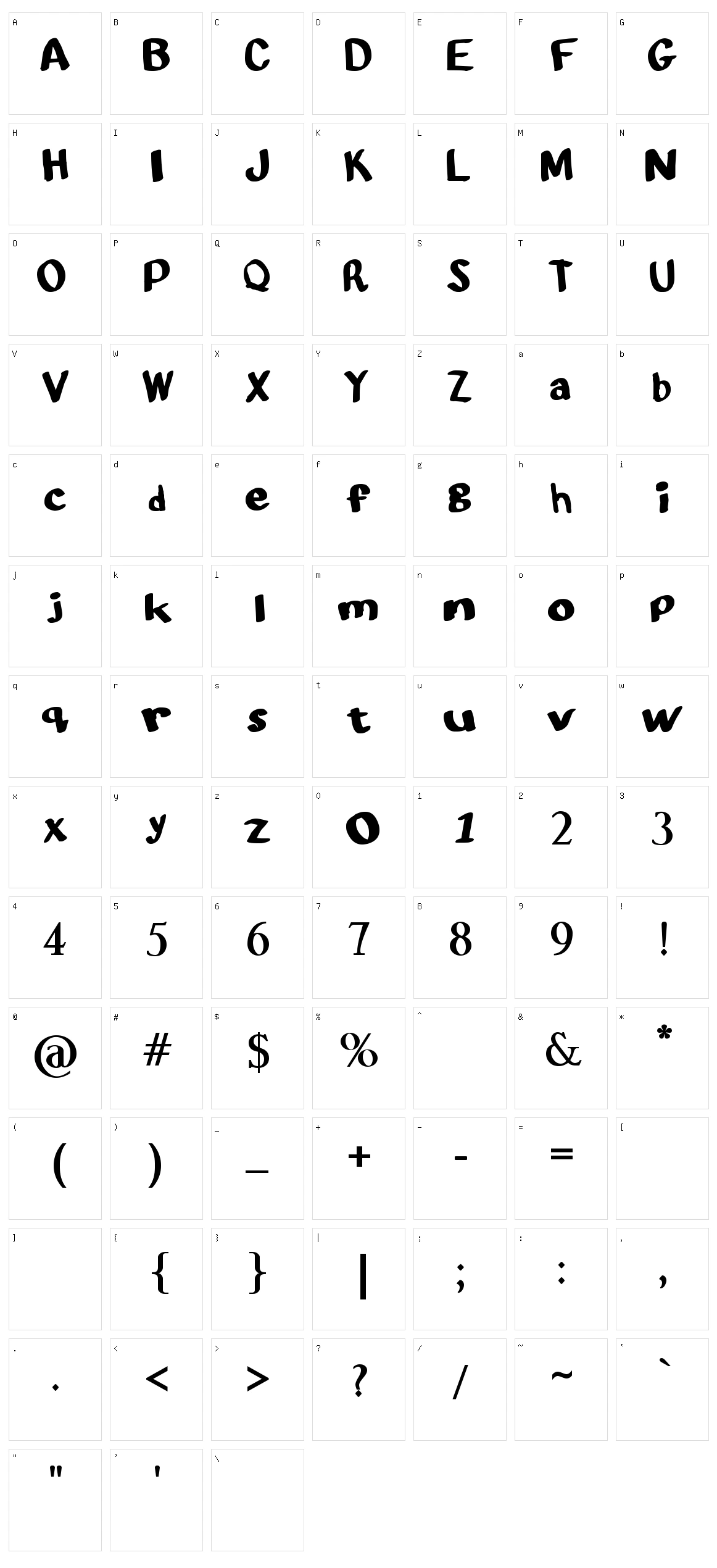
The free font Alligator Soap is carefully designed by Eric Allen, showcasing a thoughtful balance of creativity and usability and falls under the Cartoon font style. When you download the ZIP file, it contains only 14.91 KB of font files, making it lightweight and quick to download. Please review the license details below to understand permitted usage and distribution rights. If license information is not available, we recommend using this font for personal projects only or contacting the author directly for commercial usage permissions.